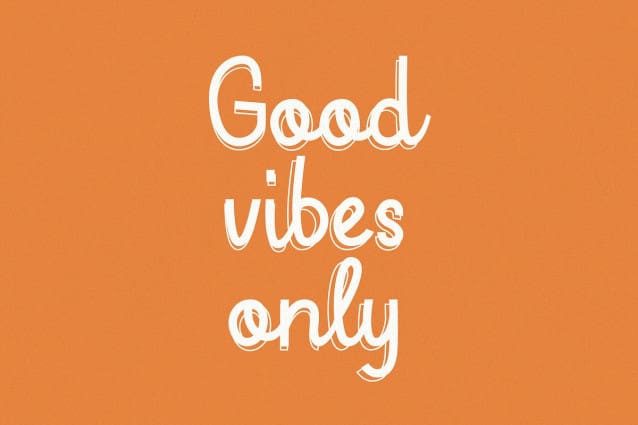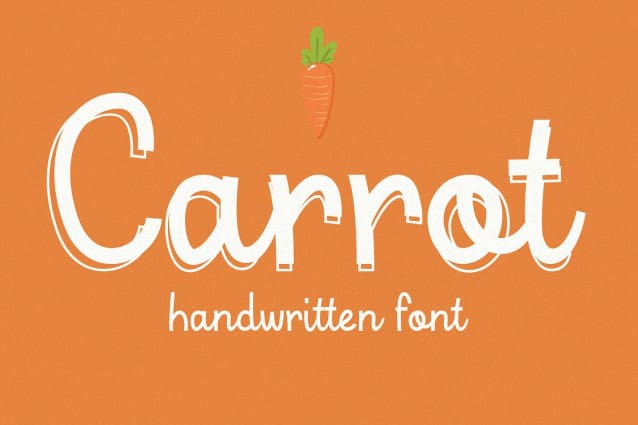
Carrot Script Font
Carrot Script Font is an adorable handwritten font that comes in two flavors, outline and regular. Thanks to it’s playful and organic feel, Carrot is perfect for children books, branding, web design, greeting cards, posters or anything that requires a friendly vibe.